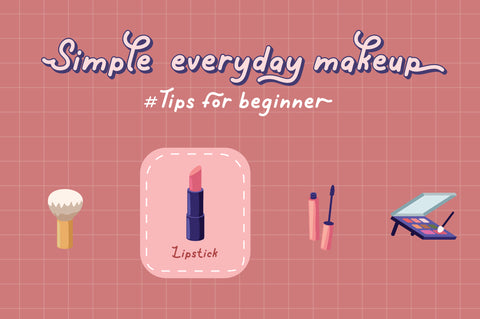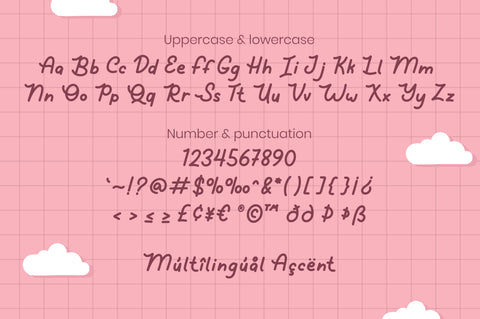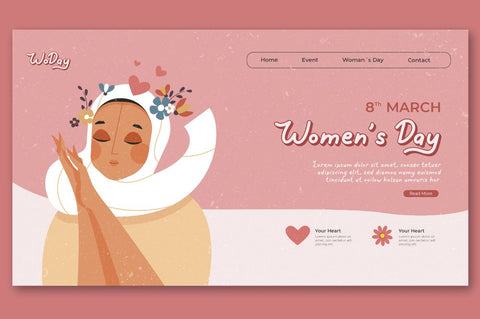
Lovely Sonia - Script Font
Lovely Sonia is a layered script font with display extrude style perfect for 3D designs.
Combine it with Lovely Sonia - ending swash & extrude style to make an effect on your letter!
Lovely Sonia perfect for wedding promotion, branding, logo, invitation, stationery, social media post, product packaging, merchandise, blog design, game titles, cute style design, Book/Cover Title and more.